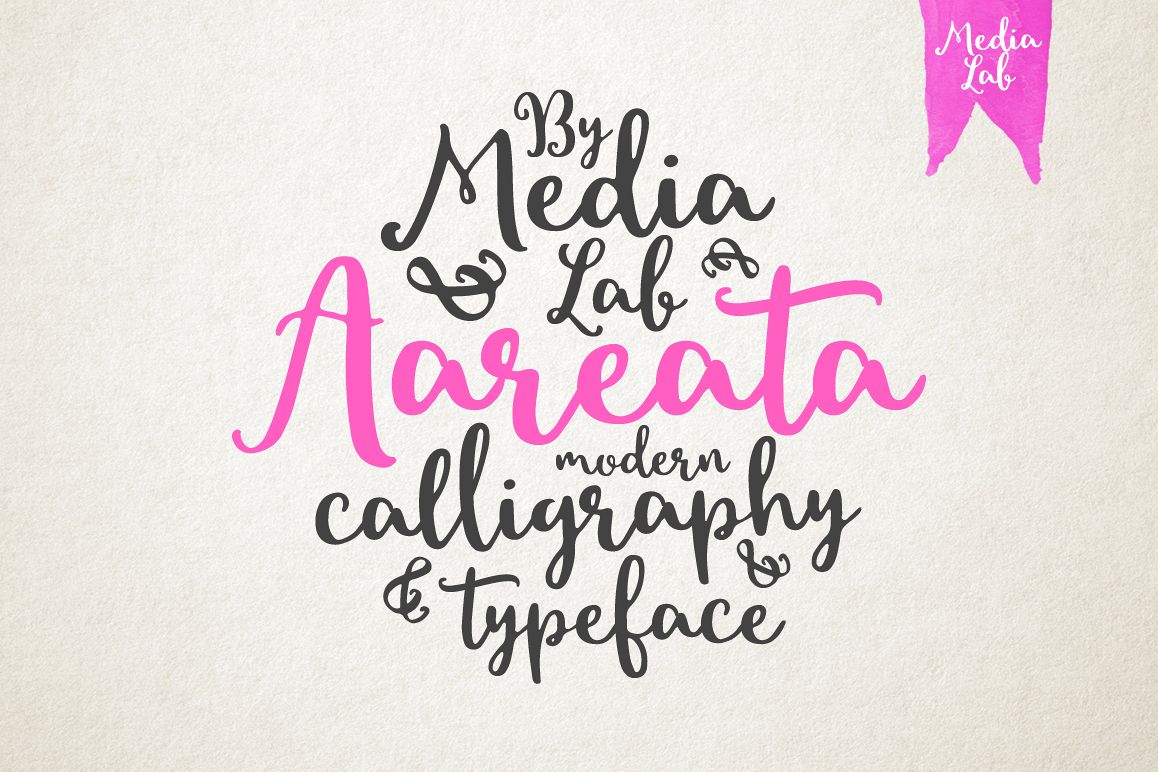
Aareata handwritten script
This modern calligraphy script has been attentively written, with gentle curves to produce a font thats completely distinctive and original. It contains a full set of lower & uppercase letters, a large range of punctuation, numerals, and multilingual support. Perfect for adding a elegant and unique touch to your lettering projects and branding
Also with their help, you can create a Wedding lettering or beautiful frame for your home